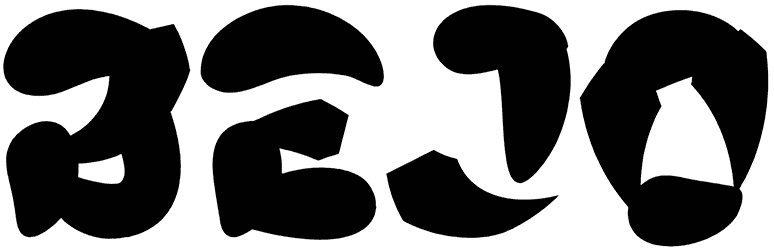
Bejo Font
Make a memorable impact on your viewers with stunning words and show off your creativity. This Japanese font, called Bejo, comes in a bold but unreadable visual that makes it a unique item to hook many visitors. It doesn’t include numbers and most punctuation marks, but don’t miss the chance to use it for your intended projects like posters, signs, and so on.